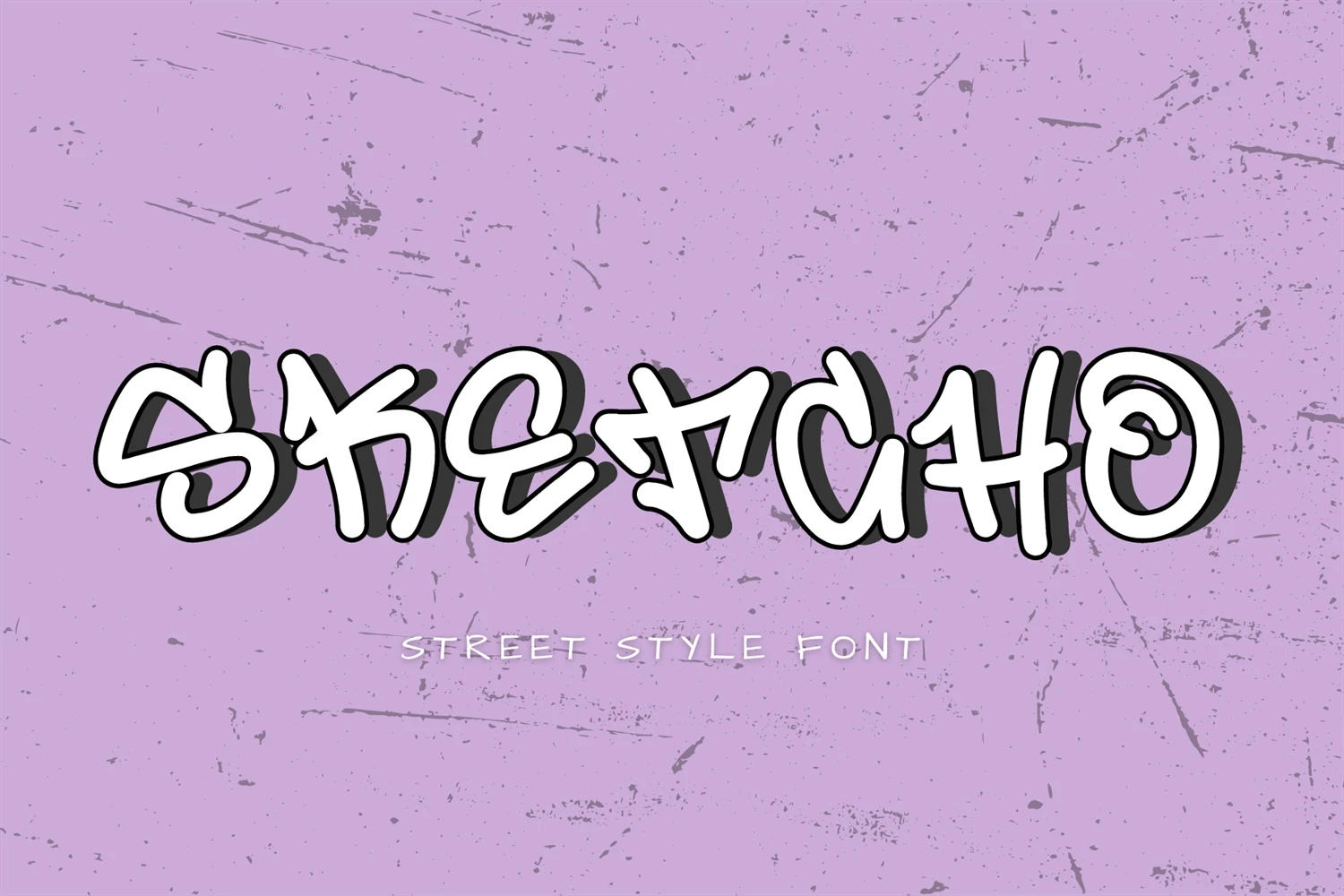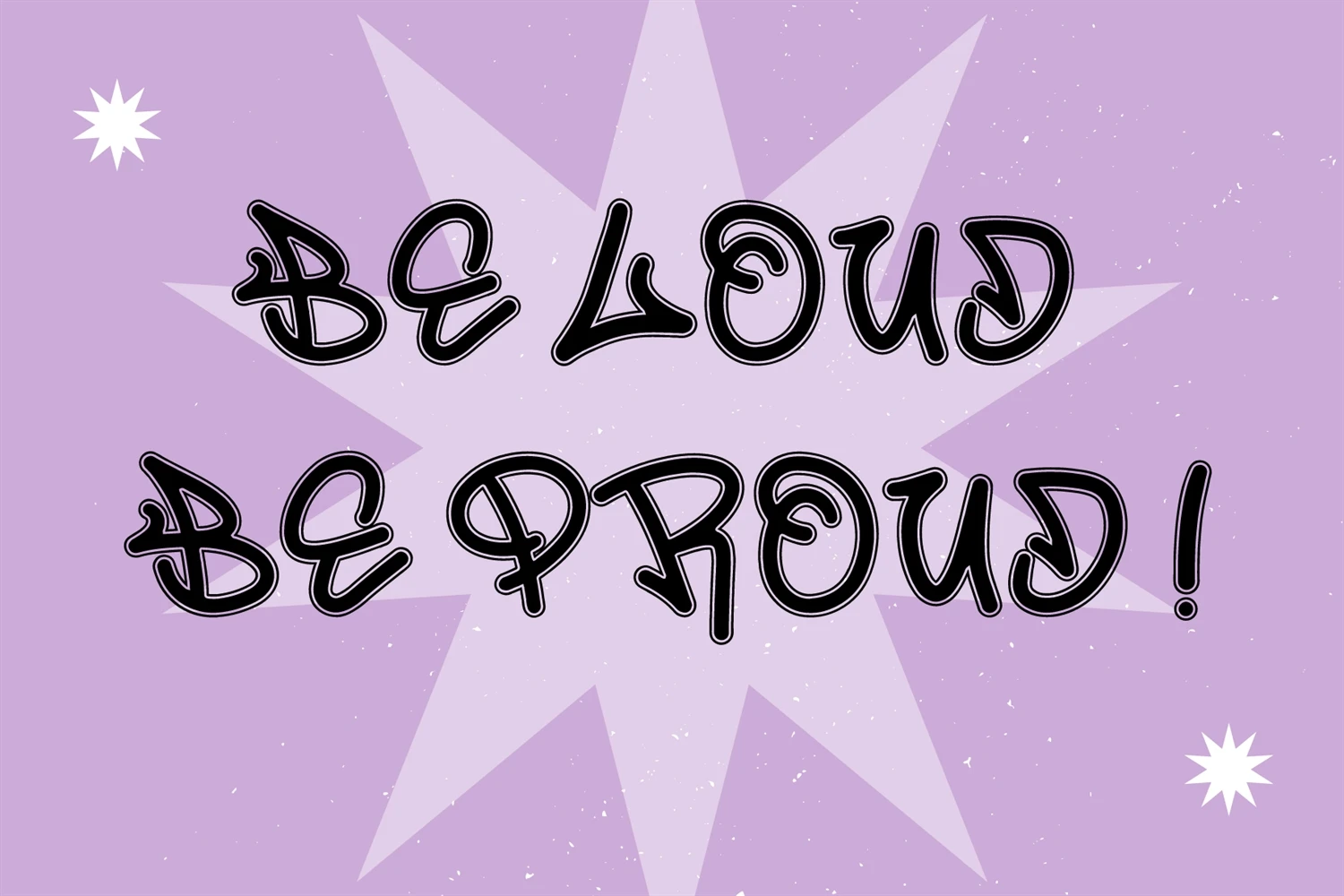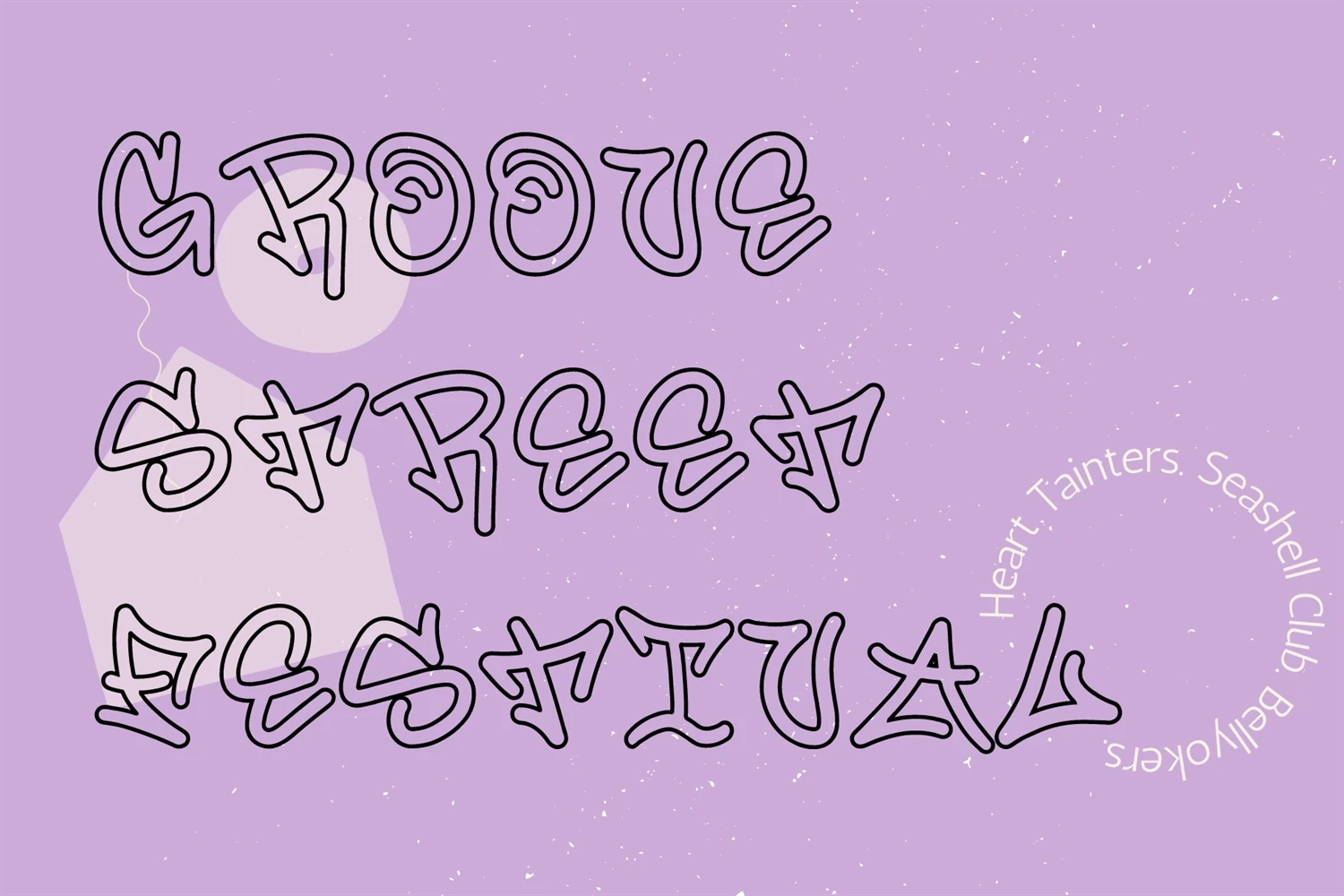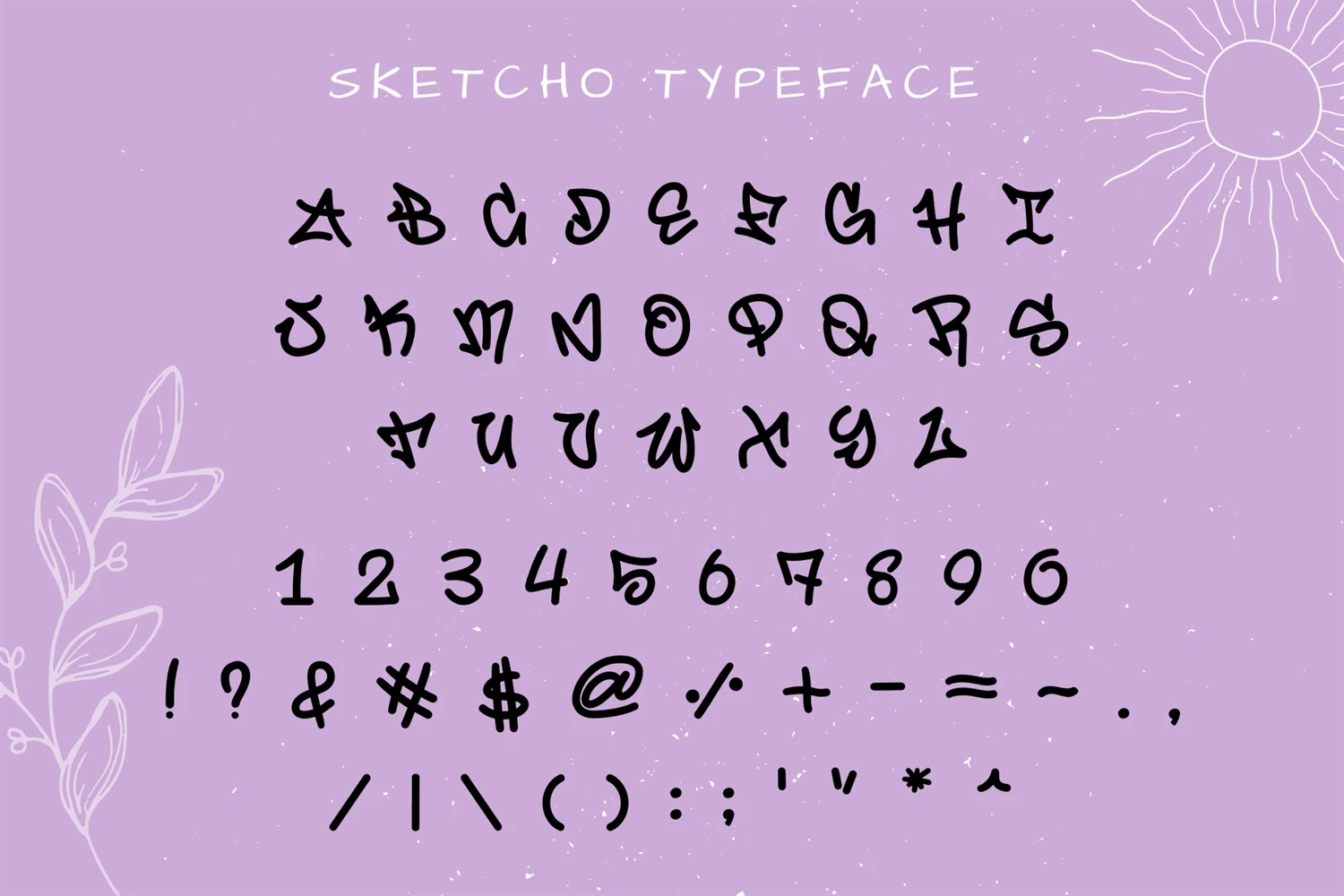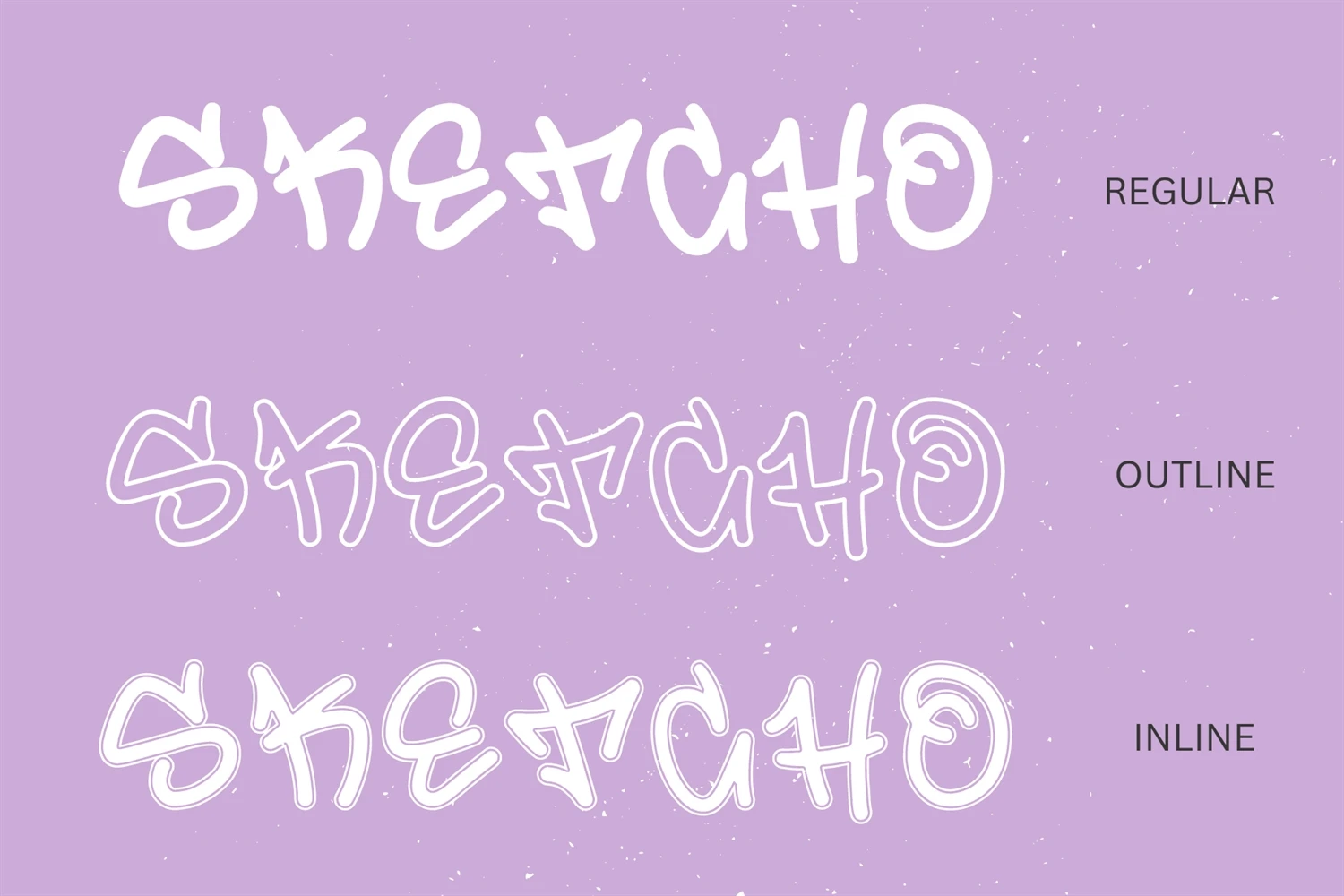
Sketcho is a dynamic and edgy display font that captures the essence of street-style graffiti. Its bold, jagged letters create a distinct urban look and feel, making it perfect for eye-catching headlines and bold designs. Sketcho is the perfect font for any project looking to add a touch of urban edge and attitude.